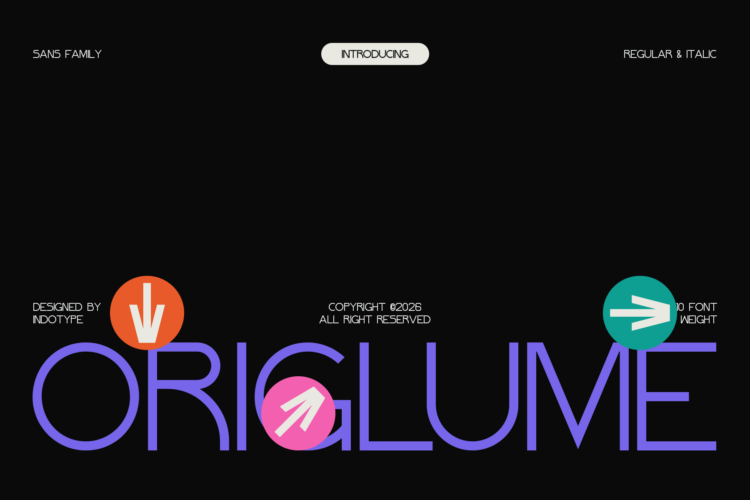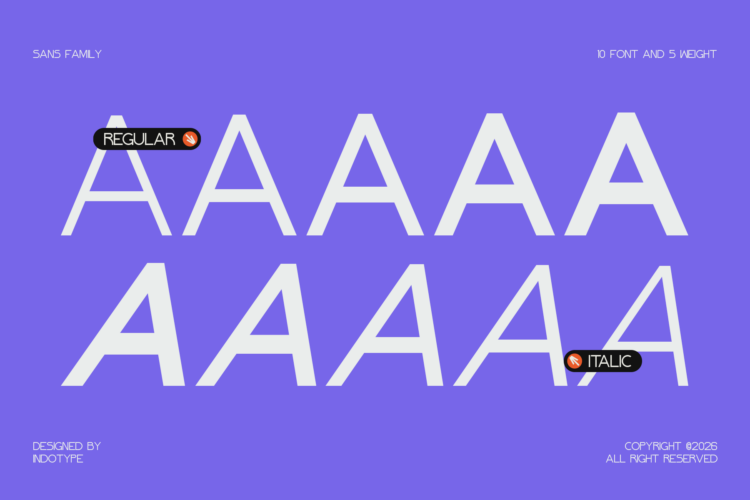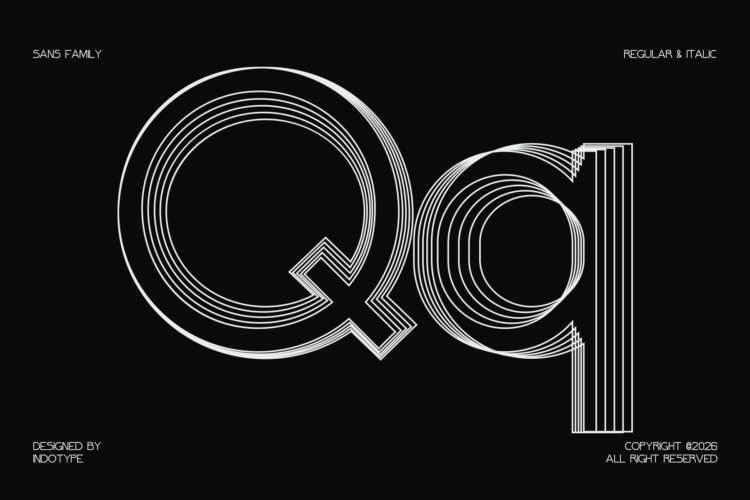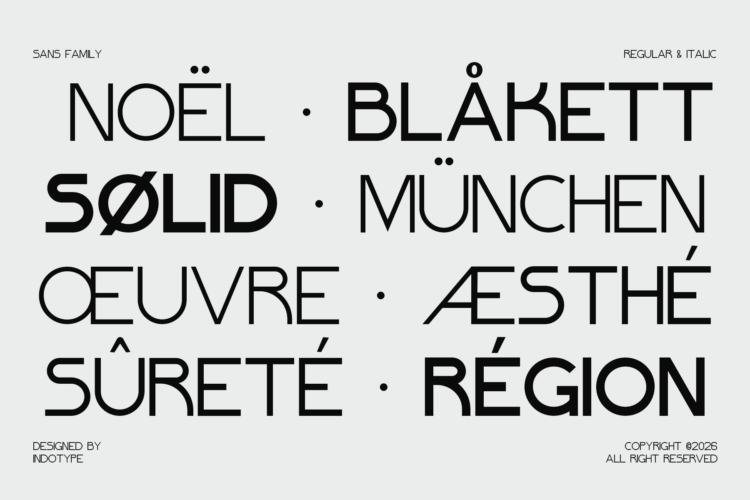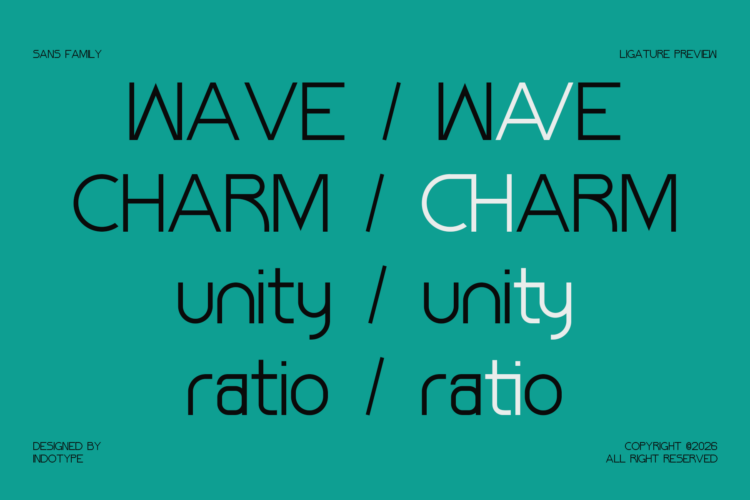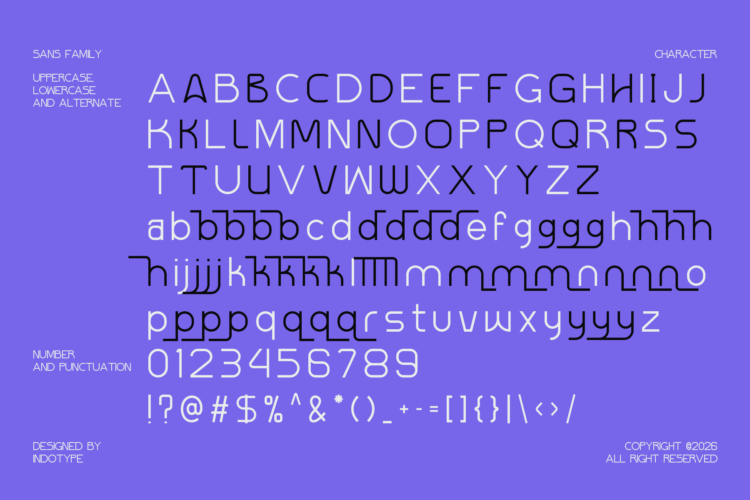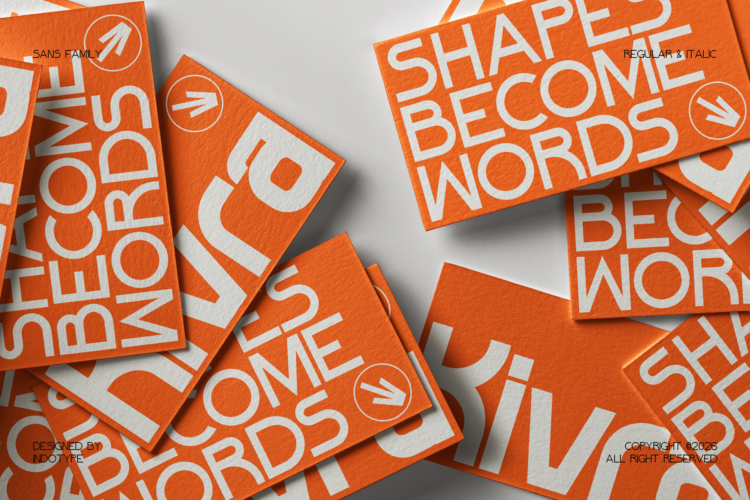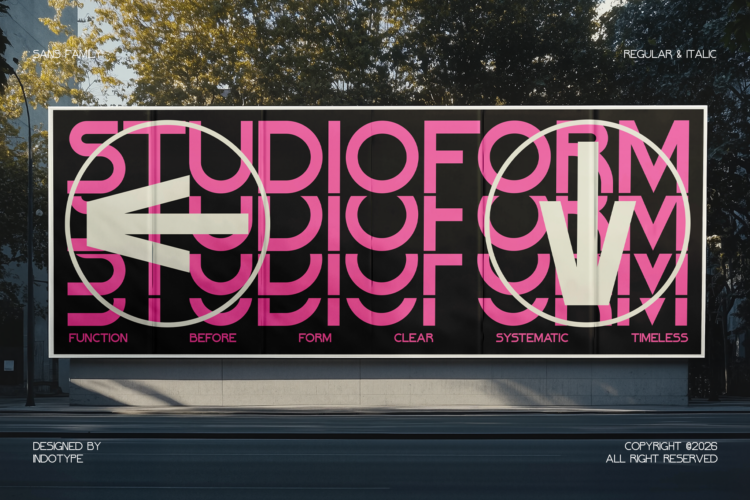
Origlume is a geometric sans-serif font family that operates at the intersection of precision and personality. Designed by Indotype, Origlume delivers 10 font weights across Regular and Italic styles — a comprehensive typographic system built for the demands of contemporary brand design, digital product development, and forward-thinking visual communication. Where many geometric sans-serif families feel cold or purely functional, Origlume manages something rarer: it is technically rigorous and visually warm at the same time, a typeface that works as hard as an engineer and looks as good as a designer.
With 10 font weights and corresponding Italic styles, Origlume provides designers with an exceptionally deep typographic palette. From ultra-light weights ideal for refined editorial subheadings and UI body text, through mid-range weights suited for navigation and interface labels, to the heavy and black weights built for display headlines and brand logotypes — Origlume covers the full spectrum of typographic need within a single, harmonious family system. This makes it as valuable as a UI type system for a complete digital product as it is as a display font for a single brand campaign.
- Regular, Medium, Semi Bold, Bold, ExtraBold Weight Styles and Italic Style on Each Weight
- Including Ligatures Glyphs